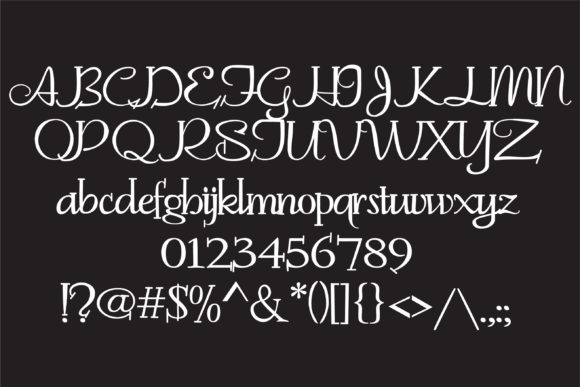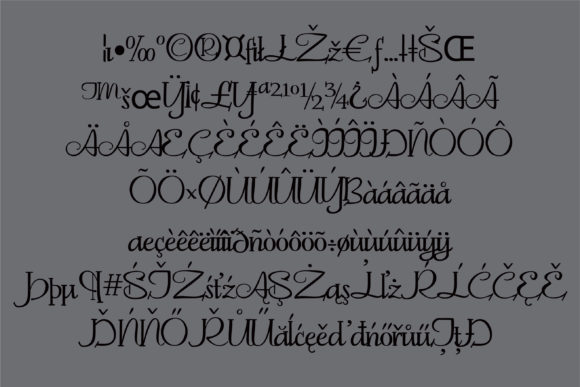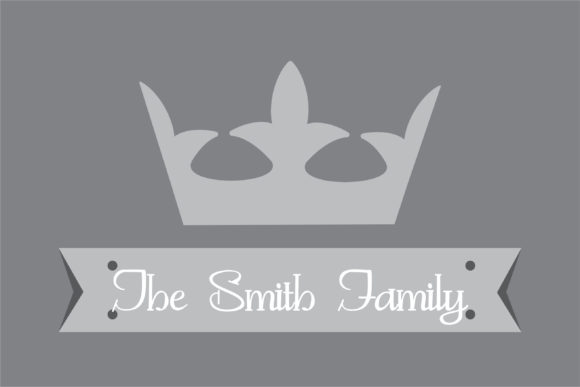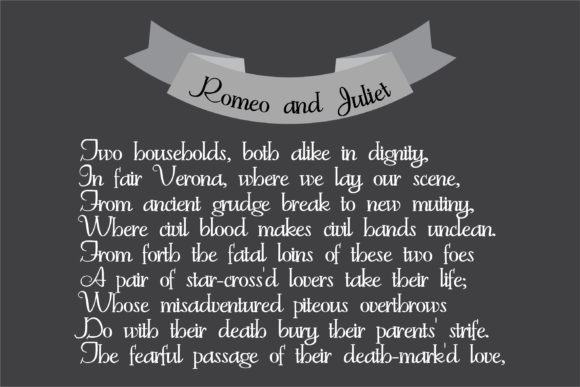
Introduction to Gray Champion Font
As a designer, there’s nothing quite like the thrill of discovering a new, high-quality font that elevates your creative project to the next level. For me, that moment came when I stumbled upon the Gray Champion Font – a delicate, authentic serif font with a classic charm that instantly stole my heart.
With its understated elegance, the Gray Champion Font is the perfect addition to any design resource. Whether you’re working on a free download or a paid project, this font is sure to bring a touch of sophistication to your work. Its transparent background allows for seamless integration, making it a valuable asset for designers looking to add a unique flair to their designs.
What sets the Gray Champion Font apart from other fonts is its unique blend of classic and modern elements. Its versatility makes it an excellent choice for a wide range of creative projects, from branding and advertising to editorial and publishing. In this article, we’ll delve into the world of the Gray Champion Font and explore what makes it a must-have for designers.
Key Features of Gray Champion Font
- High-quality font designed for creative projects, suitable for various design needs.
- Features a transparent background, allowing for easy integration with various design elements.
- Unique characteristics include a subtle, modern aesthetic and a versatile font that can be used for both headings and body text.
- Perfect for designers looking for a high-quality, easy-to-use font for their next creative project.
Honest Review: Gray Champion Font
I recently had the chance to work with the Gray Champion Font on a creative project, and I must say it’s been a great addition to my design resources. One of the things that stood out to me was the high quality of the font, which made all the difference in the final result.
One of the features that I found particularly useful was the transparent background, which made it easy to integrate the font into my design without any distractions. This was especially helpful when working on a project with a lot of imagery.
- High-quality font that’s perfect for creative projects
- Transparent background makes it easy to integrate into designs
As with any font, there are some limitations to be aware of:
- Only comes in a few different weights, which can limit its versatility
- May not be suitable for projects that require a lot of bold or italic text
Overall, I’m impressed with the Gray Champion Font and would definitely consider using it again in the future. It’s a great addition to any designer’s toolbox and is perfect for projects where a high-quality, unique font is needed.
To get the most out of the Gray Champion Font, use it in conjunction with a transparent background to create a sleek and modern design. You can also experiment with different font sizes and styles to add visual interest to your project.
The Gray Champion Font is suitable for a wide range of design projects, including business cards, brochures, and website headers. Its high-quality design makes it an excellent choice for any creative project that requires a professional touch.